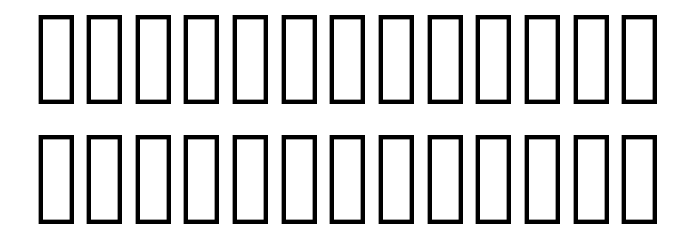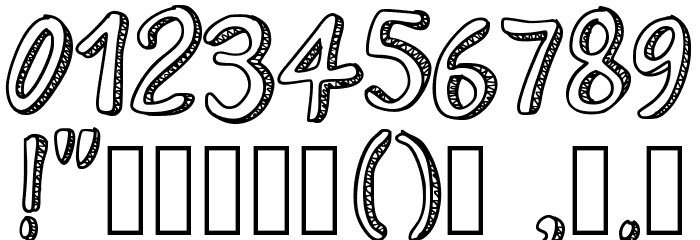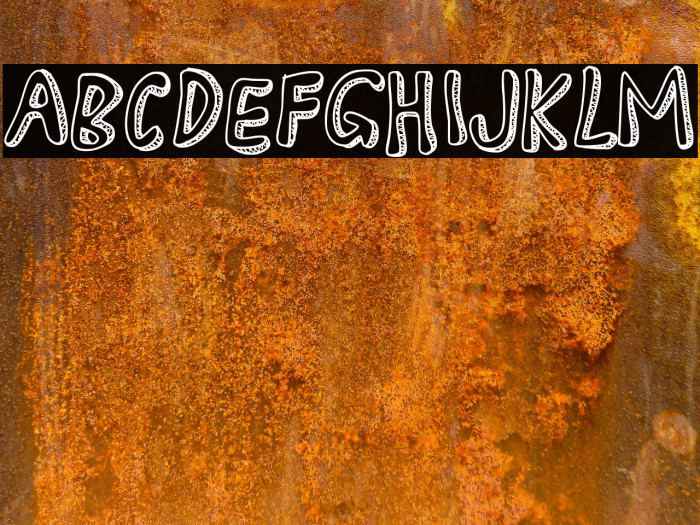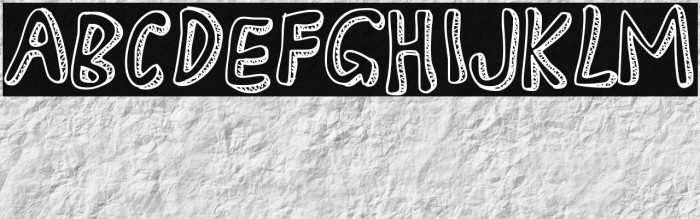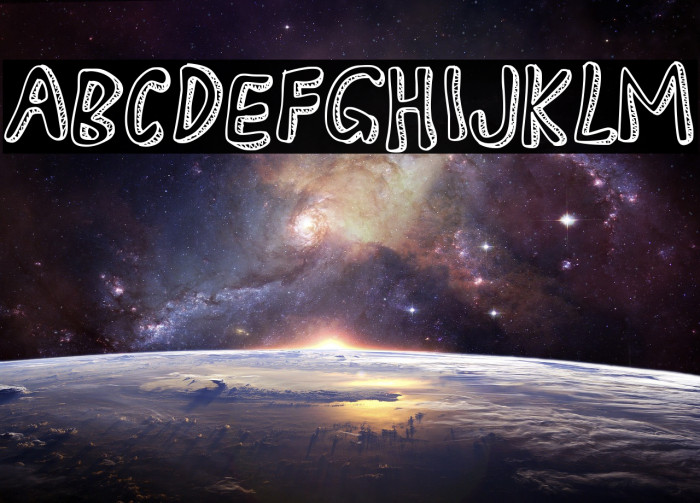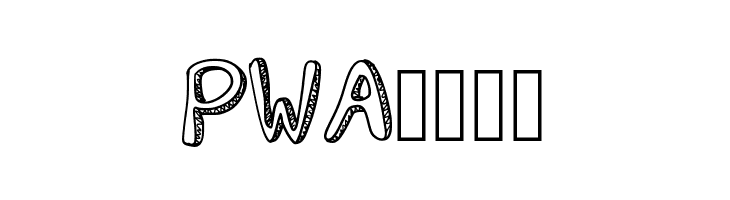
PWApril Font
This playful and decorative font features uppercase letters with a bold, outlined style filled with intricate dot patterns. The characters have a hand-drawn, whimsical appearance, making them stand out with a unique charm. The numbers follow the same style, ensuring consistency across the font. The special characters, including punctuation marks, are designed to match the overall theme, adding a cohesive look to any project. This font's artistic flair makes it ideal for creative and fun designs.
A playful, decorative font with bold, outlined letters and intricate dot patterns.
- Proposed Projects: Ideal for children's book covers, playful posters, greeting cards, and creative branding projects.